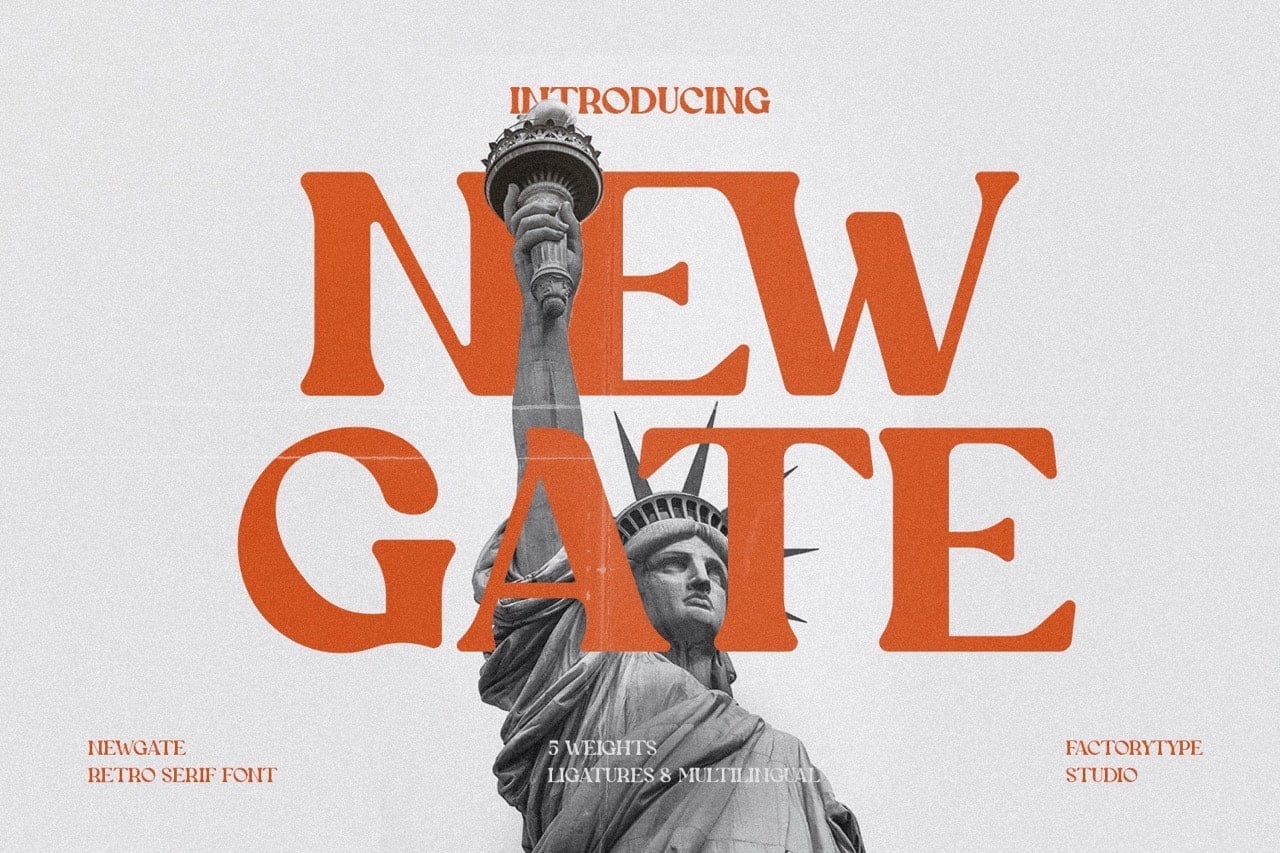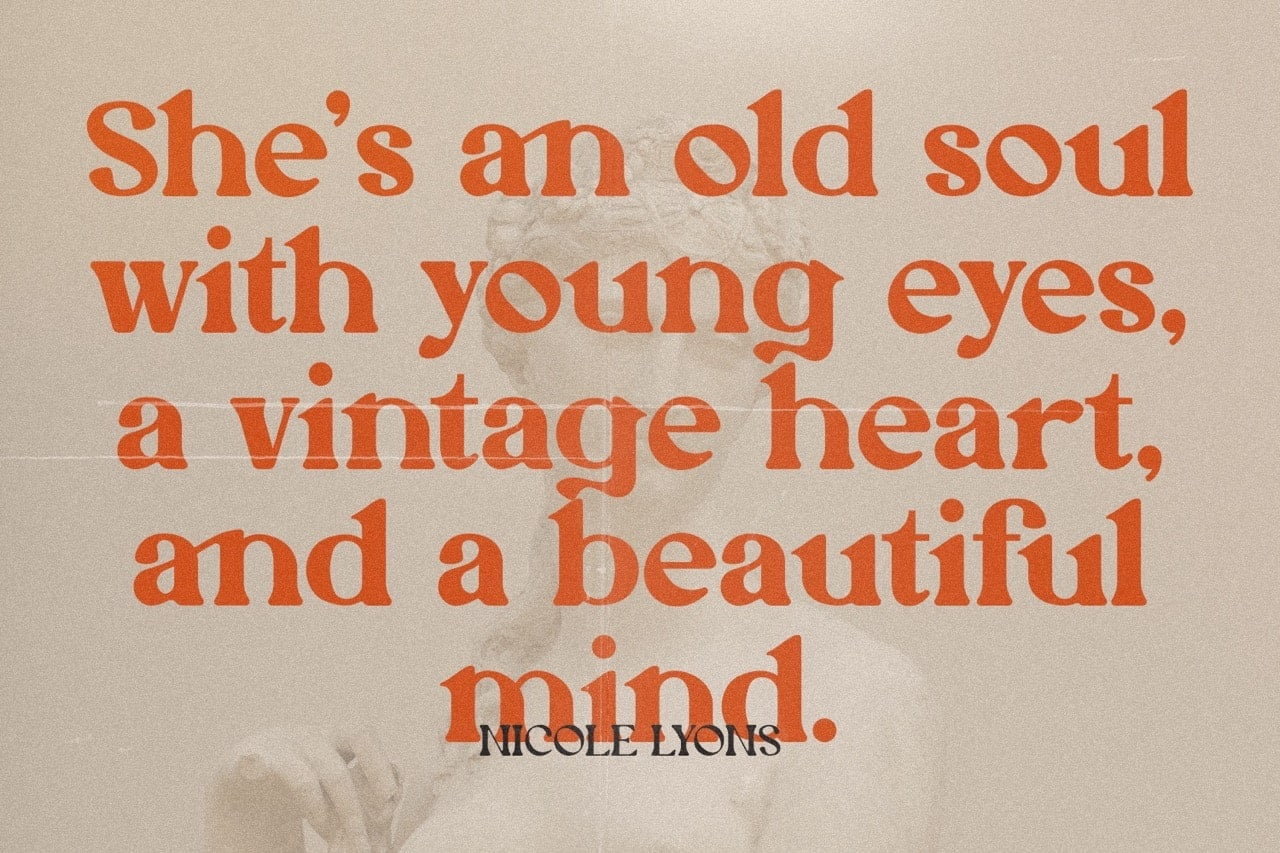
NEWGATE is a fun, contemporary font that has a vintage vibe. With thick curves and serifs, it gives you a 70s groovy vibe and goes perfectly with those vintage moodboards and logos. NEWGATE comes in separate lowercase and uppercase letters for a more organic feel, as well as numbers, punctuation, multilingual letters and ligatures.
- 5 Weights
- 2 Styles (Regular and Italic)
- Stylistic Ligatures and Alternate Glyphs